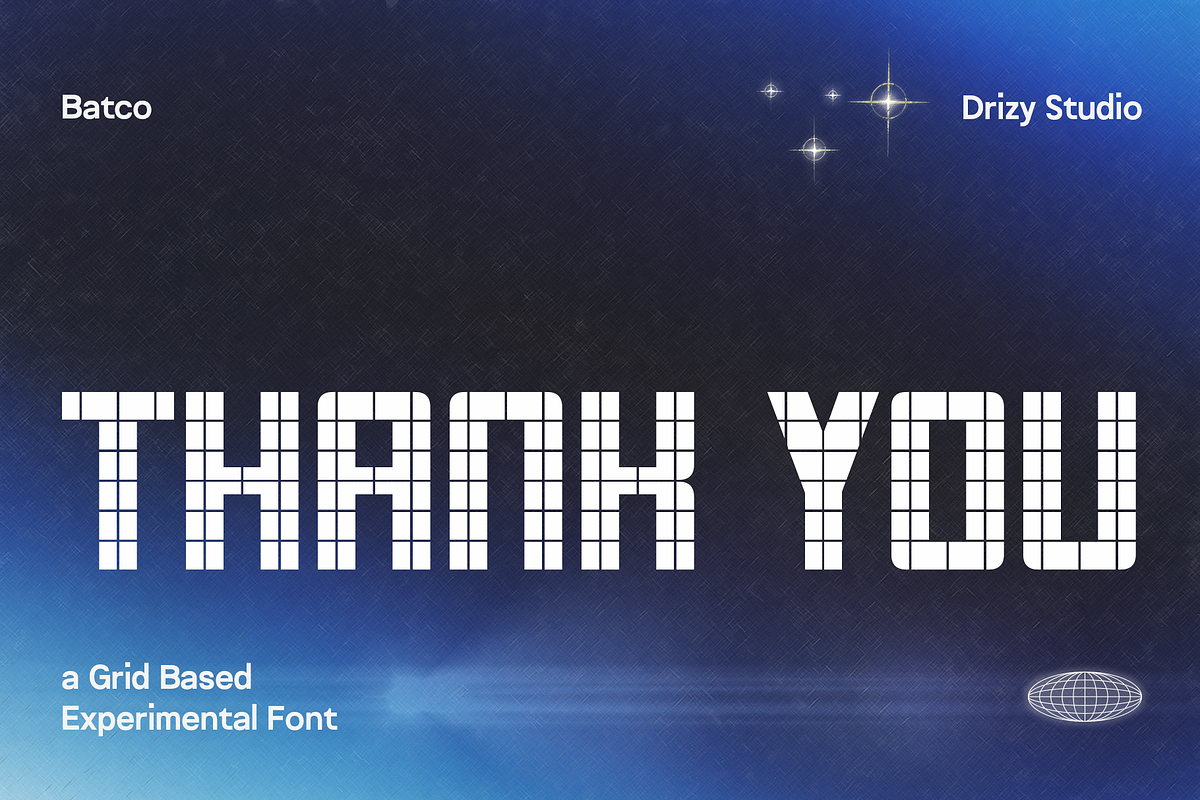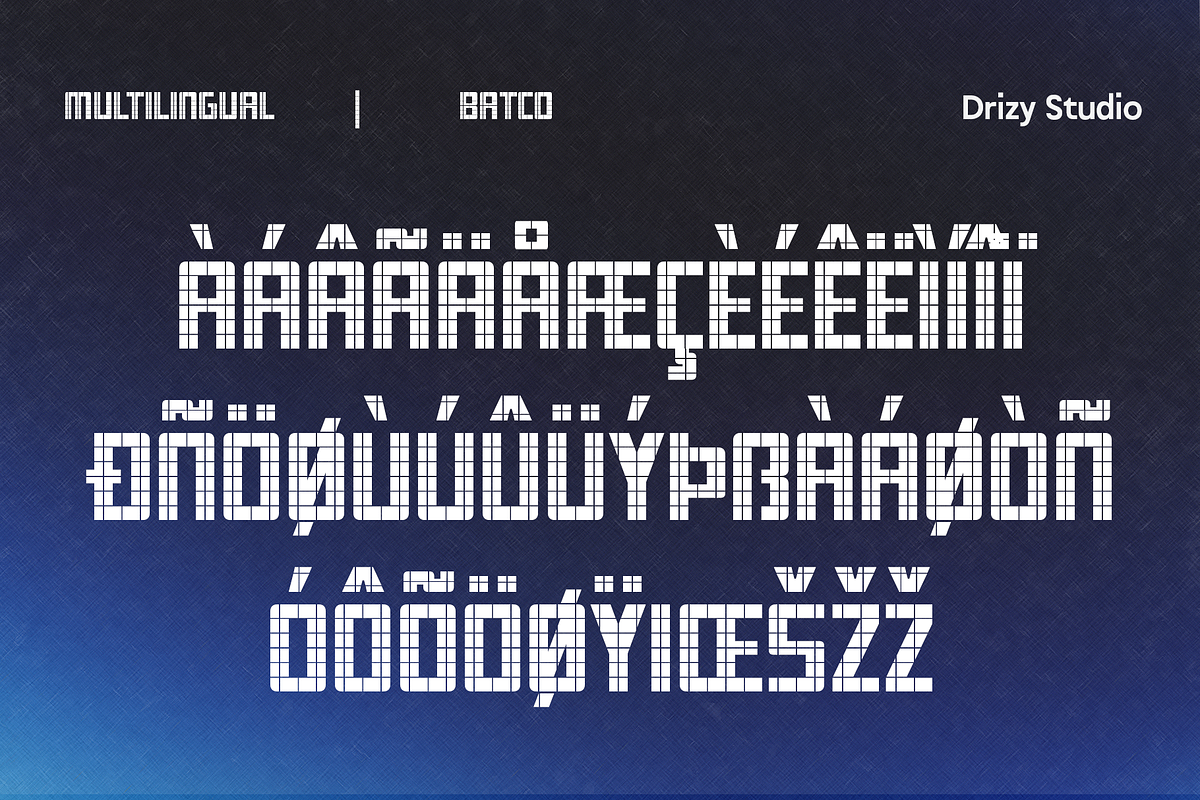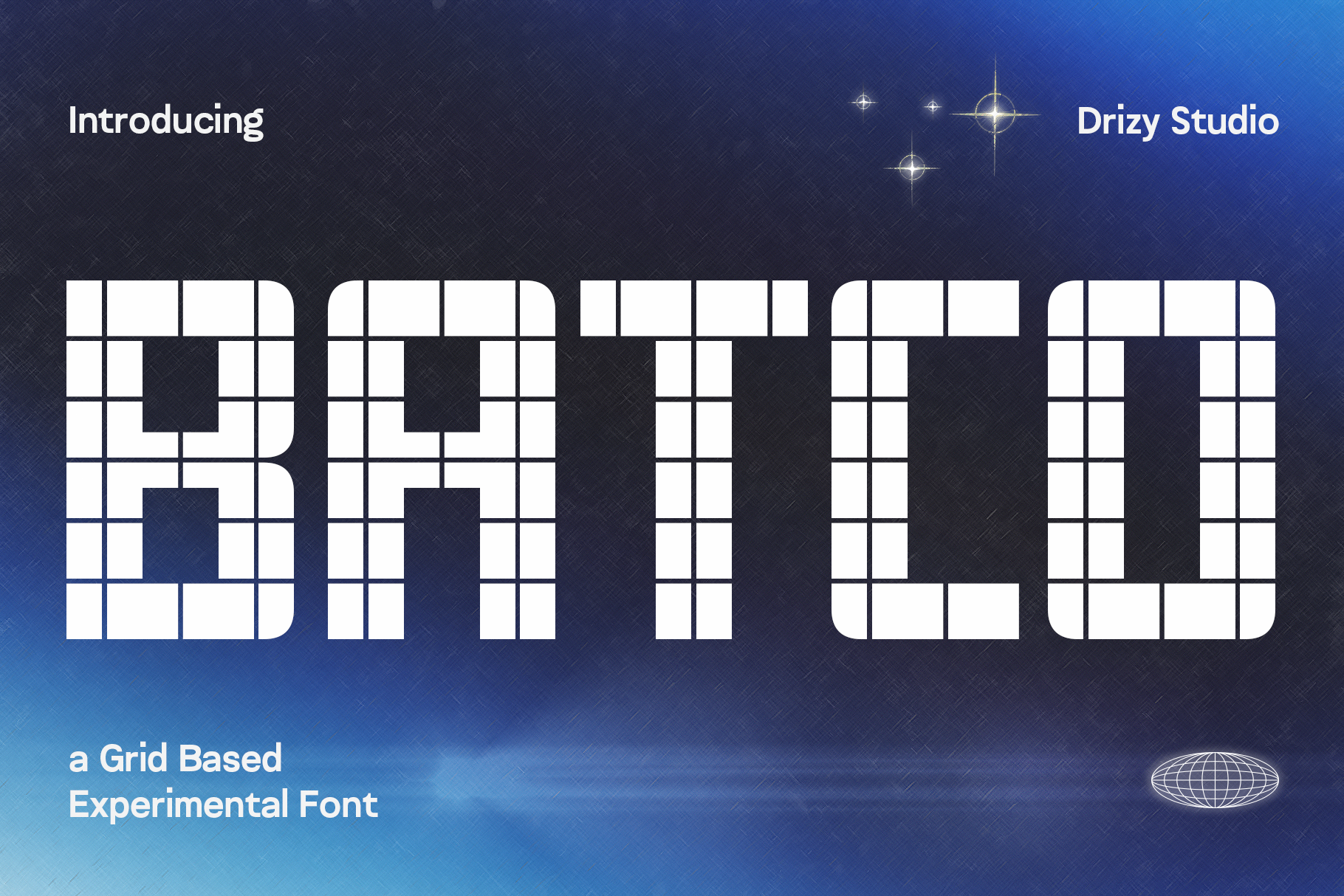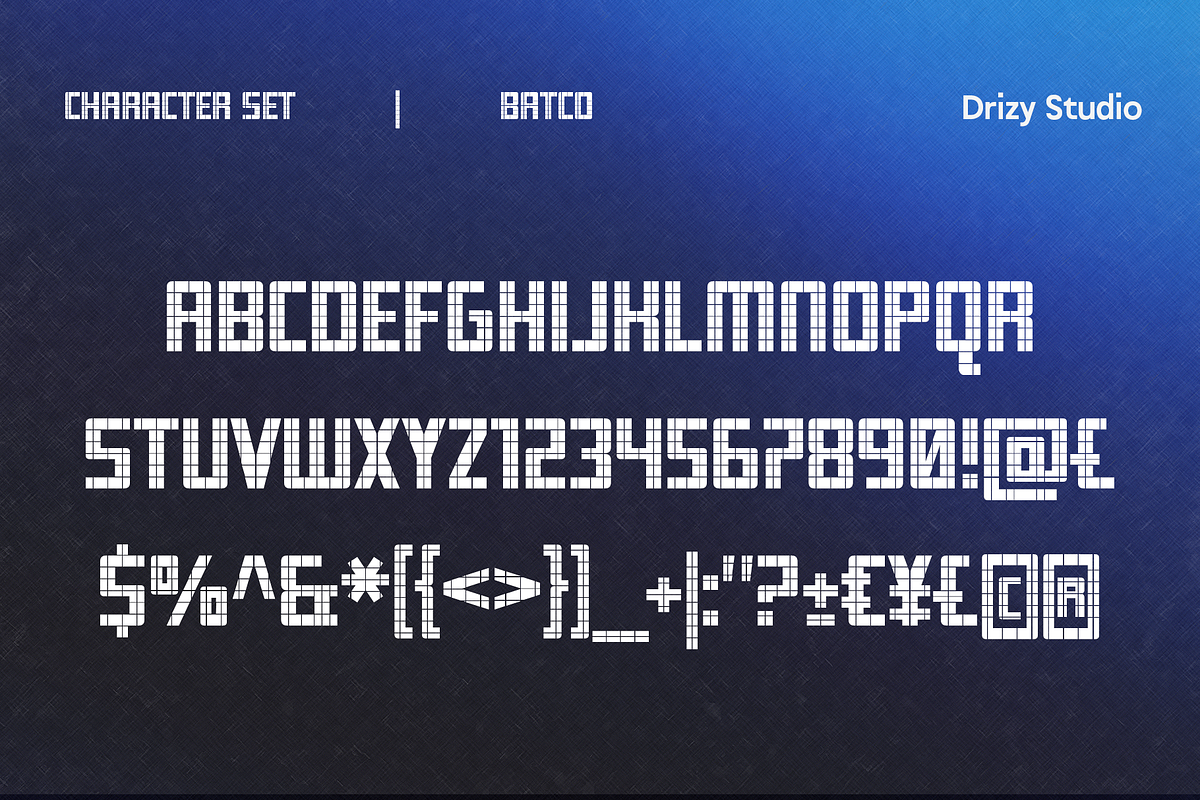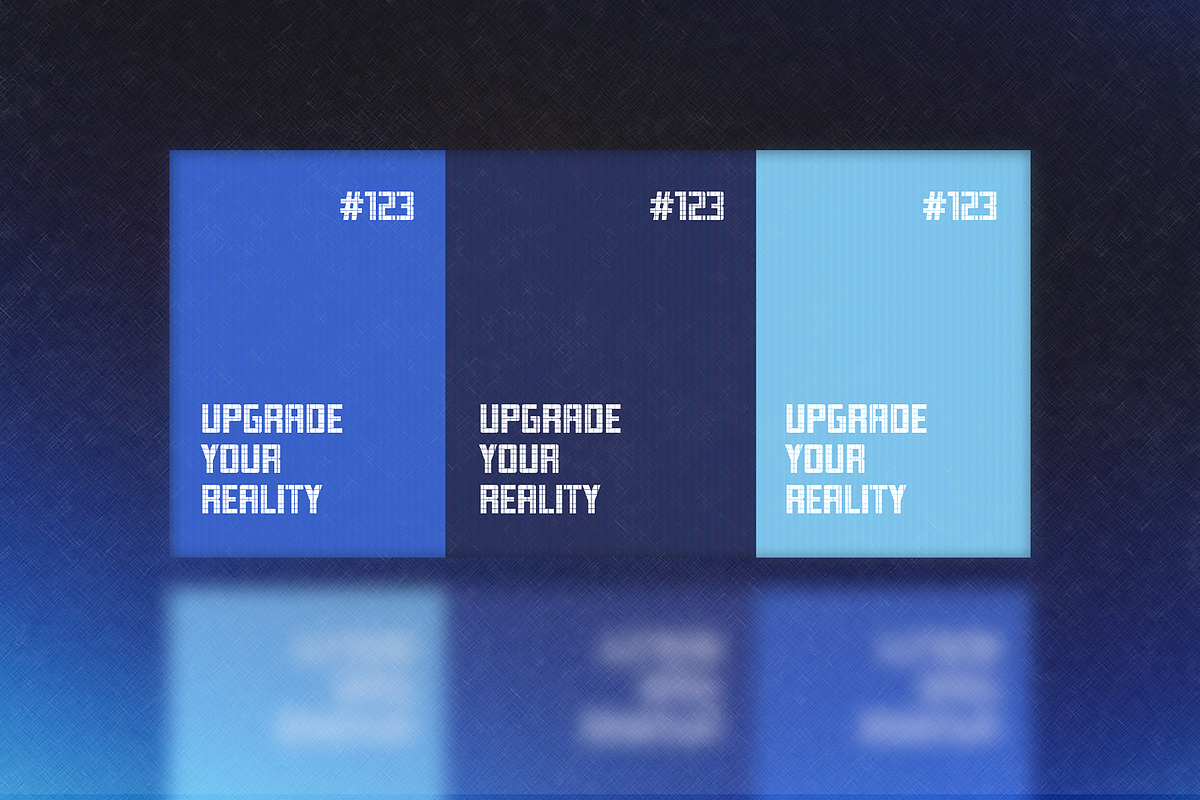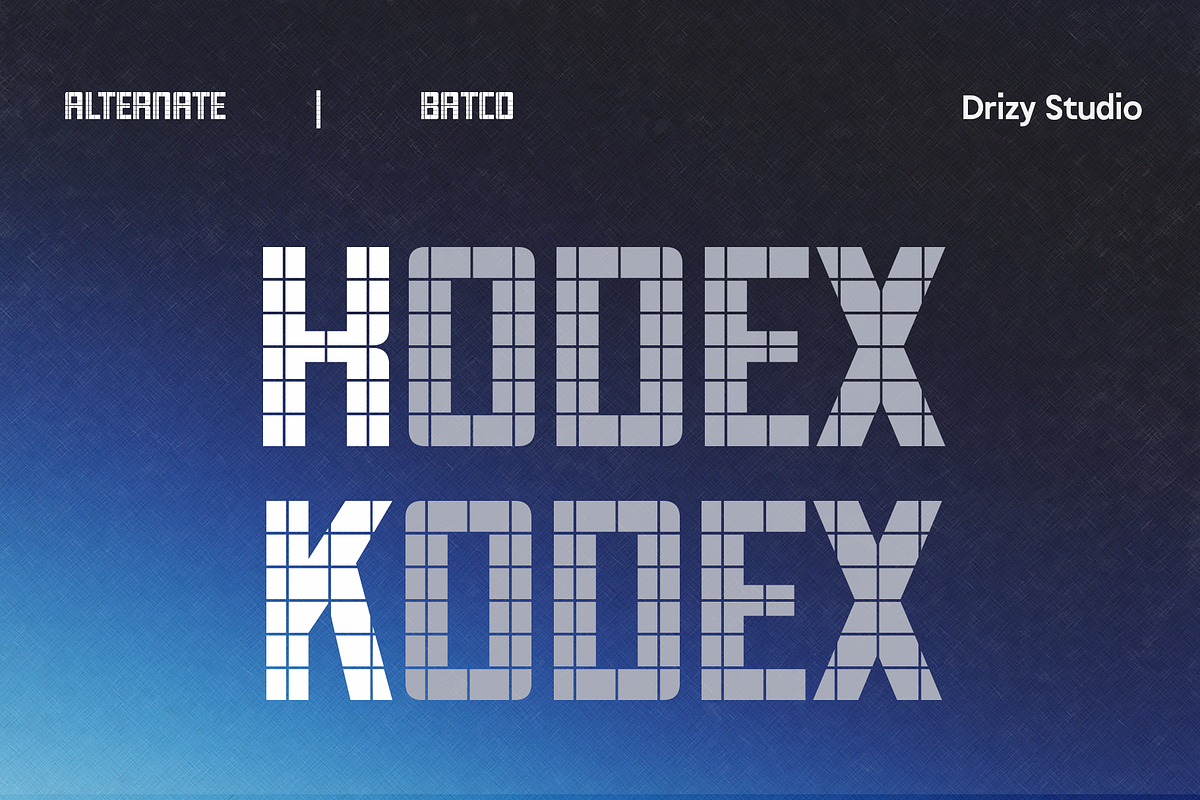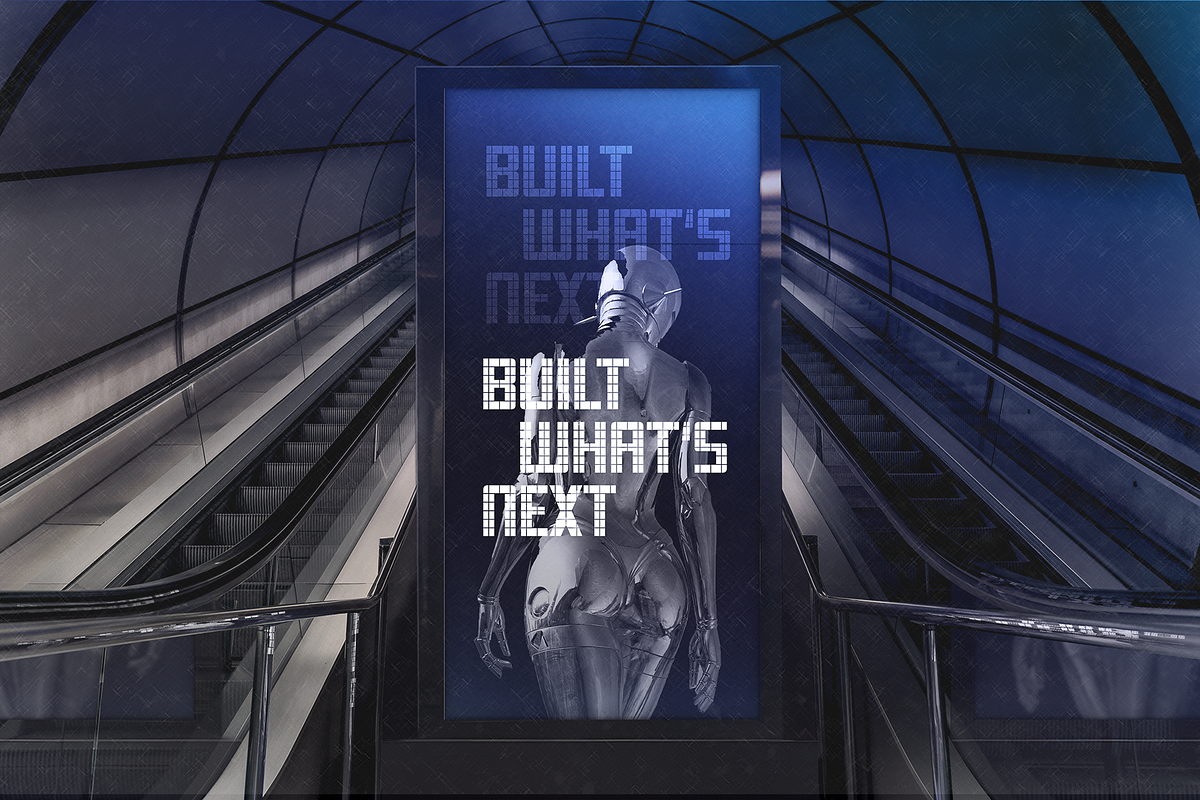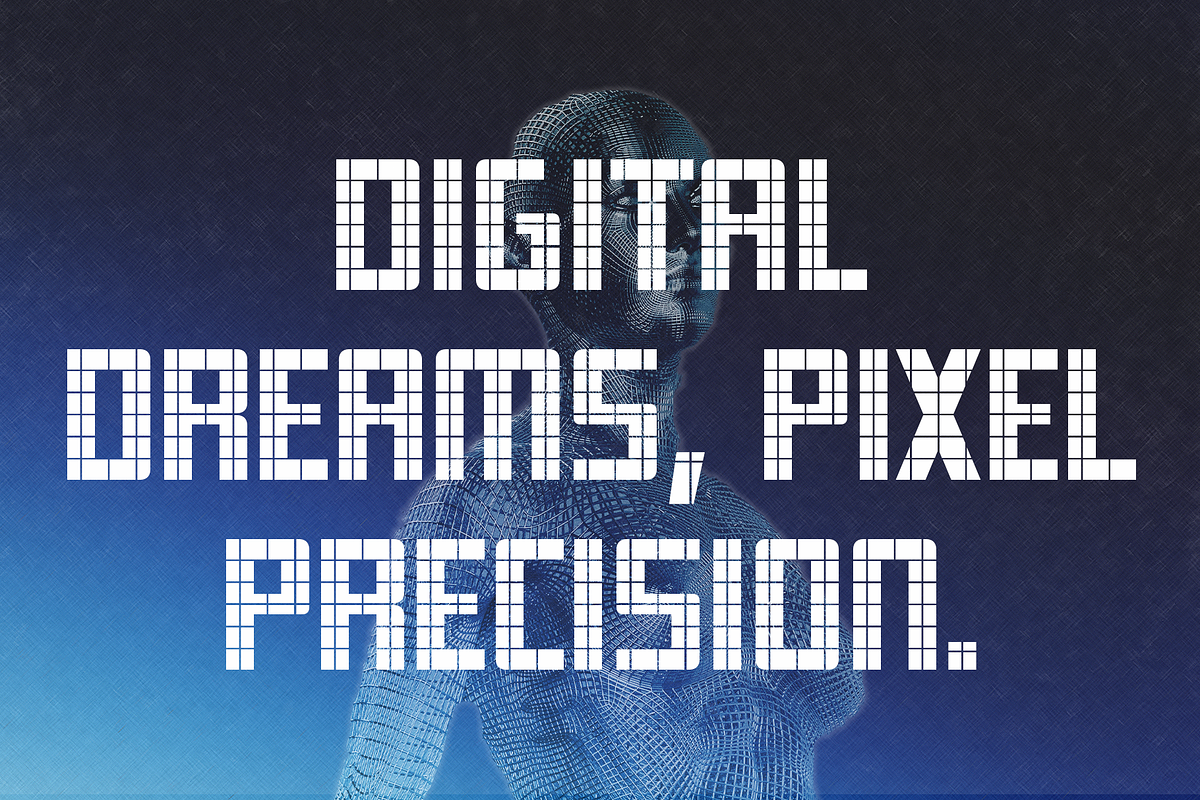
Batco – Grid Based Experimental Font
Batco is a bold exploration of structure and rhythm — a grid-based experimental font built on precision and creative tension. Designed with a modular system at its core, every letterform is constructed from geometric units, creating a cohesive yet unconventional visual language.
Its sharp intersections, calculated spacing, and architectural balance give Batco a futuristic, almost industrial character. At the same time, subtle distortions and unexpected cuts break the rigidity of the grid, adding personality and experimental edge.